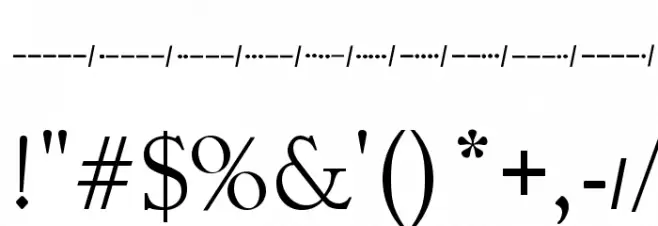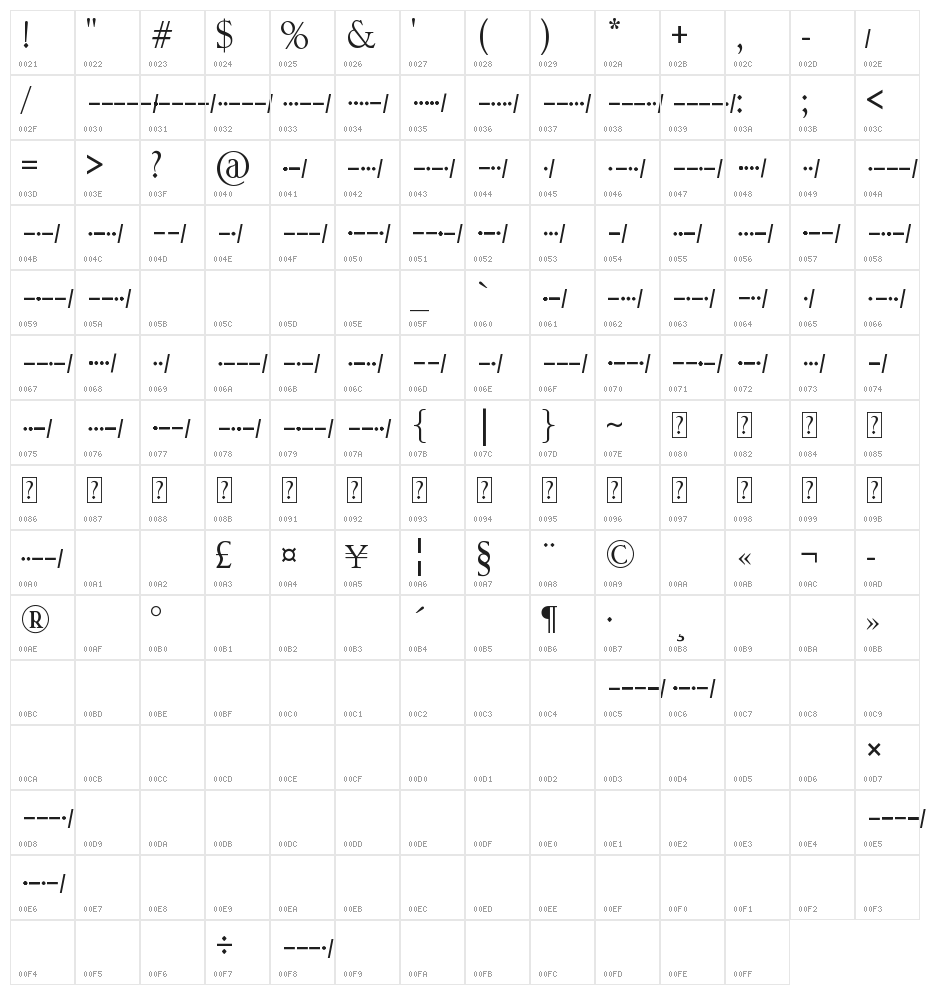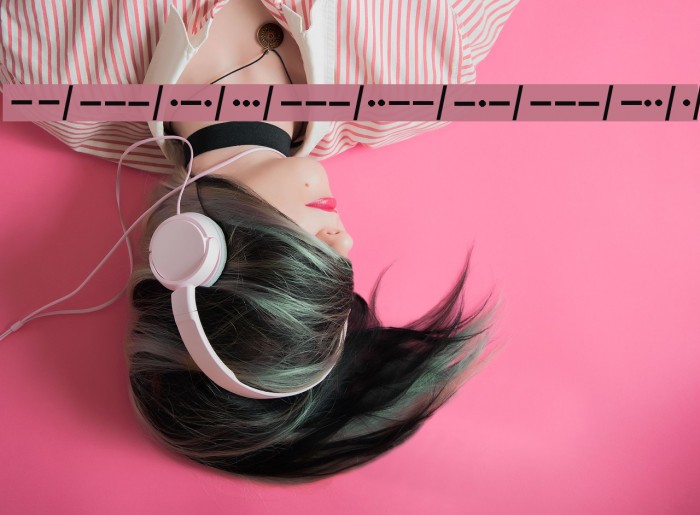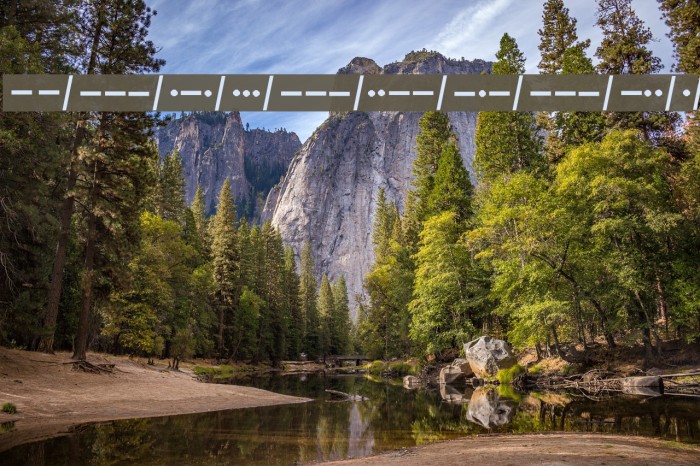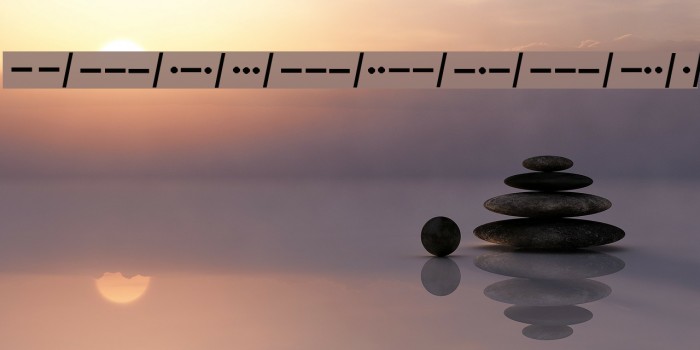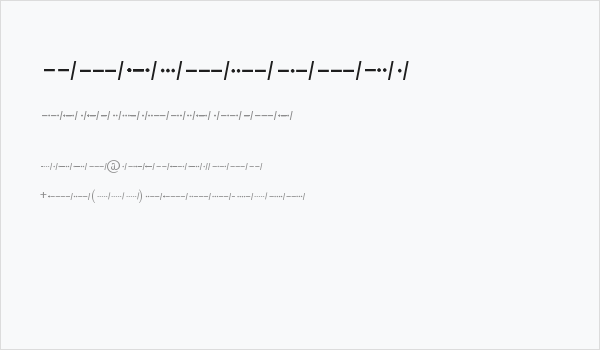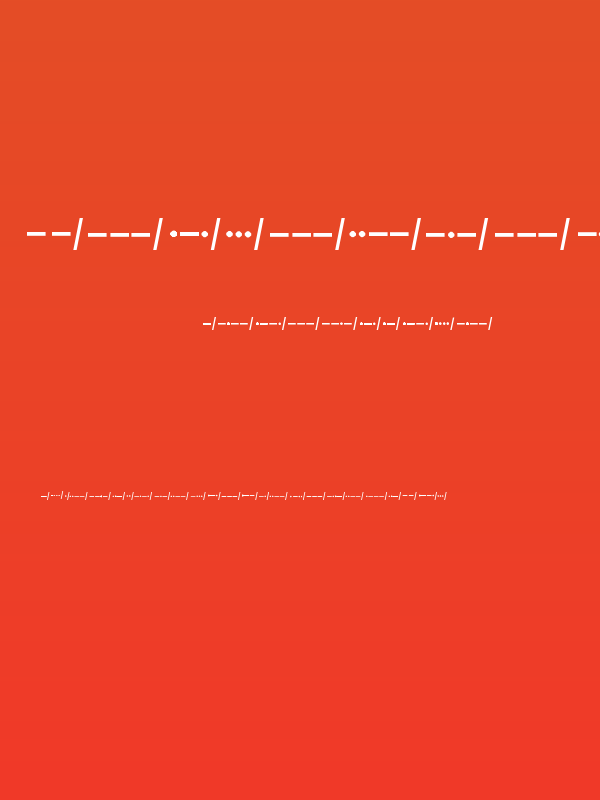
Morso kode Font
Morso kode Description
This is not a valid font. The image displays Morse code, which is a method used in telecommunication to encode text characters as sequences of two different signal durations, called dots and dashes. It is not a typographic font but rather a system for representing letters and numbers through auditory or visual signals.